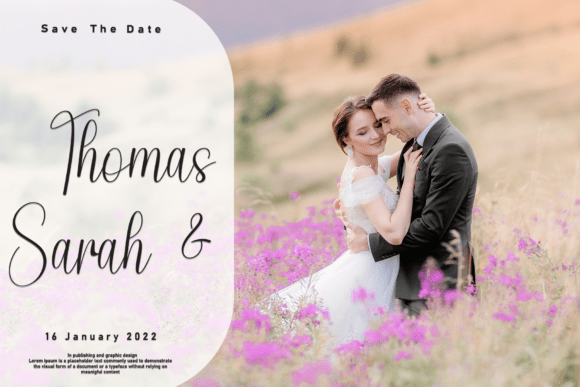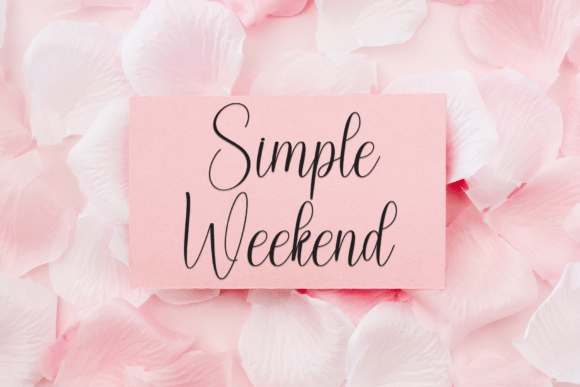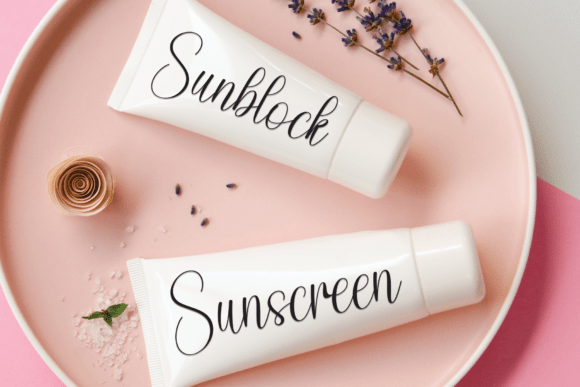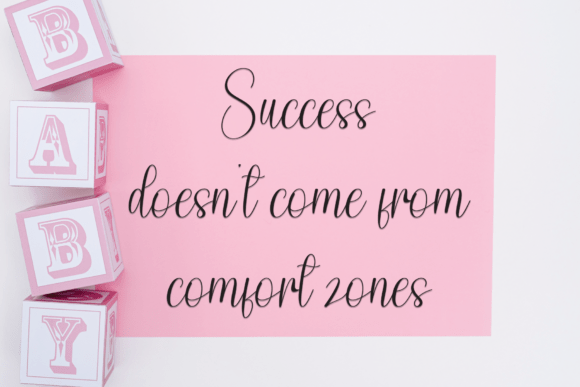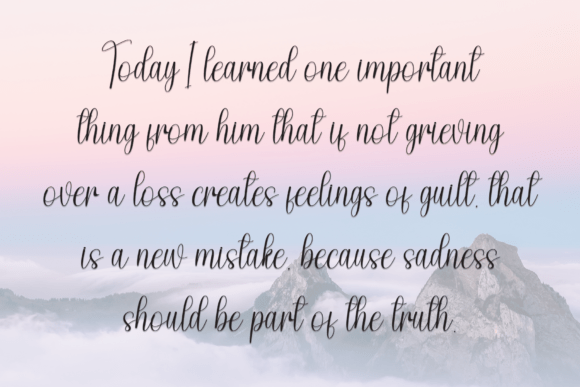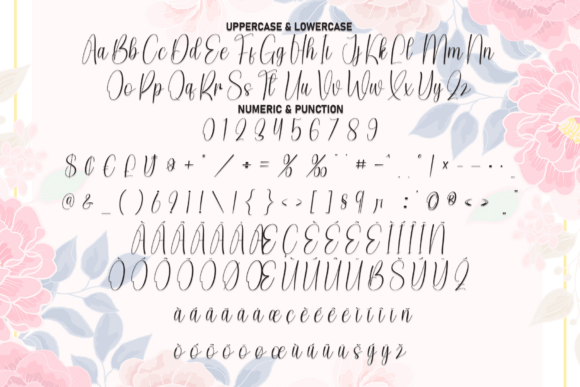
Discover the Magic of Handcrafted Typography
Have you ever been browsing through a vintage bookstore, stumbling upon an old, handwritten love letter that suddenly sparks a flood of imagination and creativity? That’s the moment when typography comes alive, and the beauty of handcrafted fonts takes center stage. For designers, the quest for the perfect font is a never-ending journey, and we’re excited to introduce you to our latest treasure: the Camelia Font.
This enchanting display font is a symphony of elegance and whimsy, perfect for adding a touch of sophistication and fun to your designs. Whether you’re crafting wedding invitations, greeting cards, or any other creative project, the Camelia Font is sure to transport your audience to a world of wonder and magic. Its unique charm makes it an invaluable addition to any designer’s toolkit, allowing you to transform ordinary into extraordinary with ease.
Camelia Font Key Features
- Font Family: Camelia
- Unique Characteristics: Elegant, cursive script with a touch of vintage charm, suitable for invitations, wedding stationery, and other formal events.
- Language Support: Multilingual support for Latin-based languages, including English, Spanish, French, German, Italian, and many more.
Camelia Font Review
Overall, I was pleasantly surprised by the Camelia Font. Here are some of its strengths:
- ✨ The font is incredibly elegant and sophisticated, making it perfect for high-end fashion or luxury brands.
- ✨ The Camelia Font has a unique, flowing script style that adds a touch of whimsy and personality to any design.
- ✨ It’s highly versatile and can be used for a wide range of applications, from logos to packaging to marketing materials.
- ⚠️ The font may be difficult to read at smaller font sizes, which could make it less suitable for body text or small-scale applications.
- ⚠️ The Camelia Font is a script font, which means it may not be as legible as a serif or sans-serif font in certain contexts.
- ⚠️ Some users may find the font too ornate or fussy, which could detract from the overall design.
Overall, I think the Camelia Font is a great choice for designers who want to add a touch of sophistication and elegance to their designs. While it may have some limitations, it’s a versatile and unique font that can add real personality to a project.
Tip: Use Camelia Font for elegant and sophisticated designs, such as wedding invitations or luxury branding materials.
Tip: Use Camelia Font for high-end design projects, such as magazine covers or book titles.
Tip: Use Camelia Font for professional presentations or reports, such as business proposals or academic papers.
Camelia Font is ideal for:
- Luxury branding materials and packaging
- Magazine covers and book titles
- Business proposals and academic papers
1. Lobster
Lobster is a beautiful, elegant script font perfect for adding a touch of sophistication to your designs. Use it for headings, titles, or quotes where you want to create a sense of luxury and refinement. Compared to Camelia Font, Lobster has a more dramatic and elaborate feel, making it ideal for high-end branding and marketing materials.
Pacifico is a modern script font with a relaxed, beachy vibe. It’s perfect for creating a friendly and approachable atmosphere in your designs. Use it for headings, titles, or body text where you want to convey a sense of calmness and serenity. Compared to Camelia Font, Pacifico has a more casual and laid-back feel, making it ideal for creative and artistic projects.
Carolyna Pro is a sophisticated and elegant script font perfect for adding a touch of elegance to your designs. Use it for headings, titles, or body text where you want to create a sense of luxury and refinement. Compared to Camelia Font, Carolyna Pro has a more refined and polished feel, making it ideal for high-end branding and marketing materials.
4. Great Vibes
Great Vibes is a beautiful, modern script font with a playful and energetic feel. It’s perfect for creating a sense of excitement and enthusiasm in your designs. Use it for headings, titles, or body text where you want to convey a sense of fun and adventure. Compared to Cam